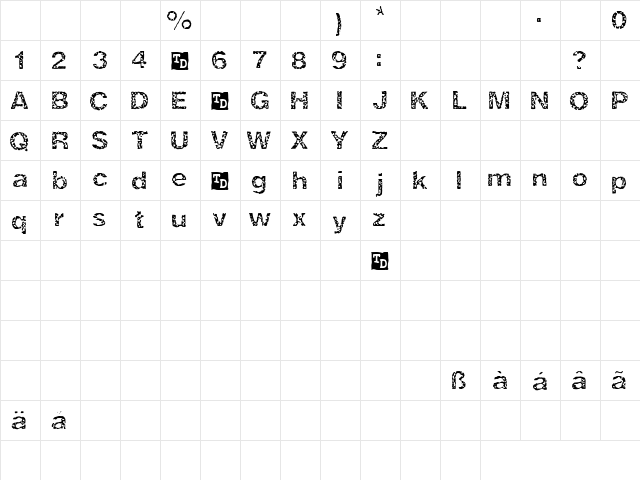
ZRex Trial Version
Design Context for ZRex Typeface
ZRex is a composed and adaptable typeface that performs quietly and consistently across a wide range of design contexts.
Pro Tip: Pair ZRex with a font of contrasting weight or personality to build a more expressive typographic hierarchy.